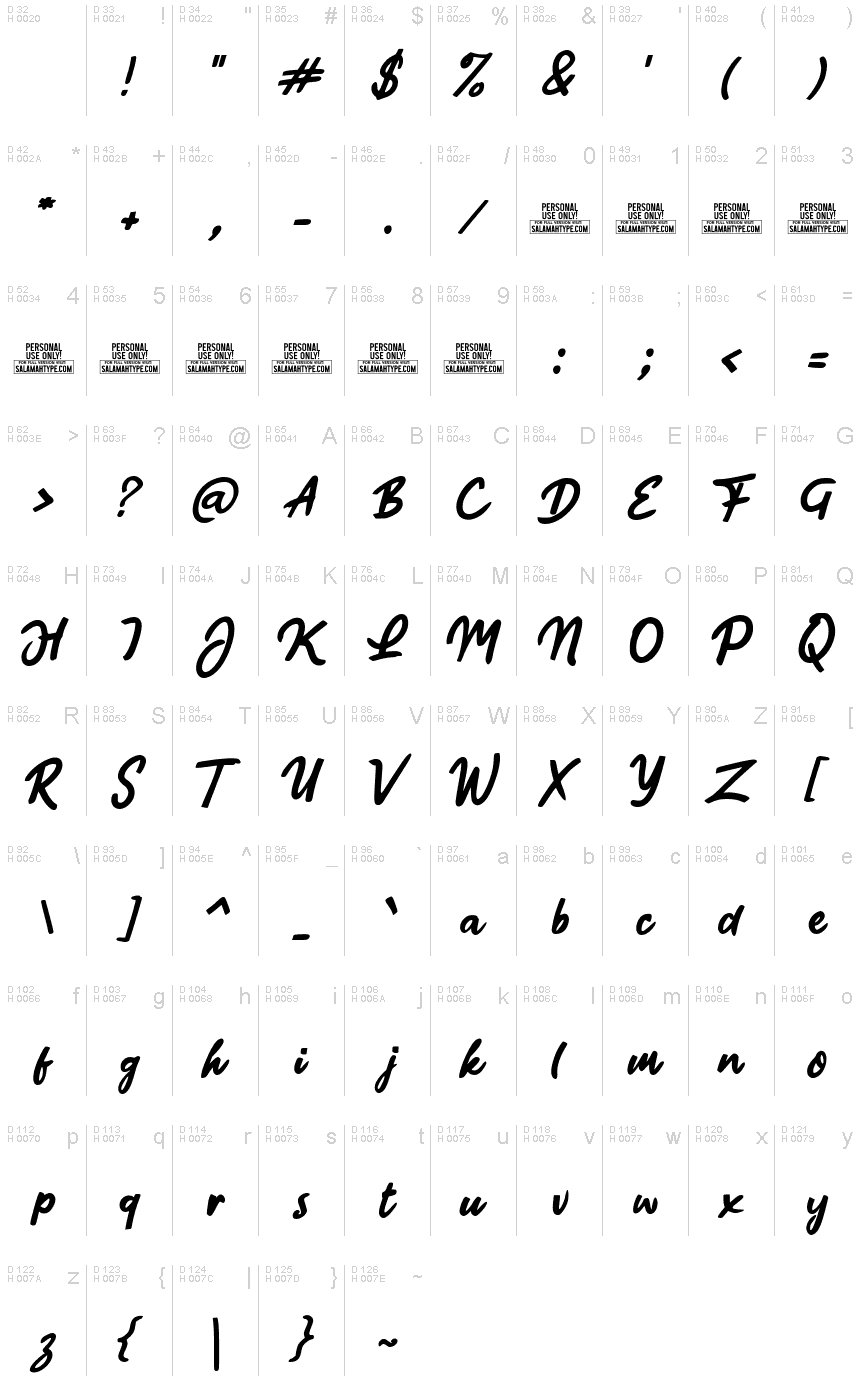
Jaman Edan Personal
Introducing Jaman Edan, a beautiful handwritten font designed by Salamahtype.com. This elegant script is perfect for adding a personal touch to any project - whether you want to create stunning invitations, eye-catching posters and flyers, or stylish logos. Jaman Edan's unique character makes it the ideal choice for creative projects that require a warm, handmade feel.